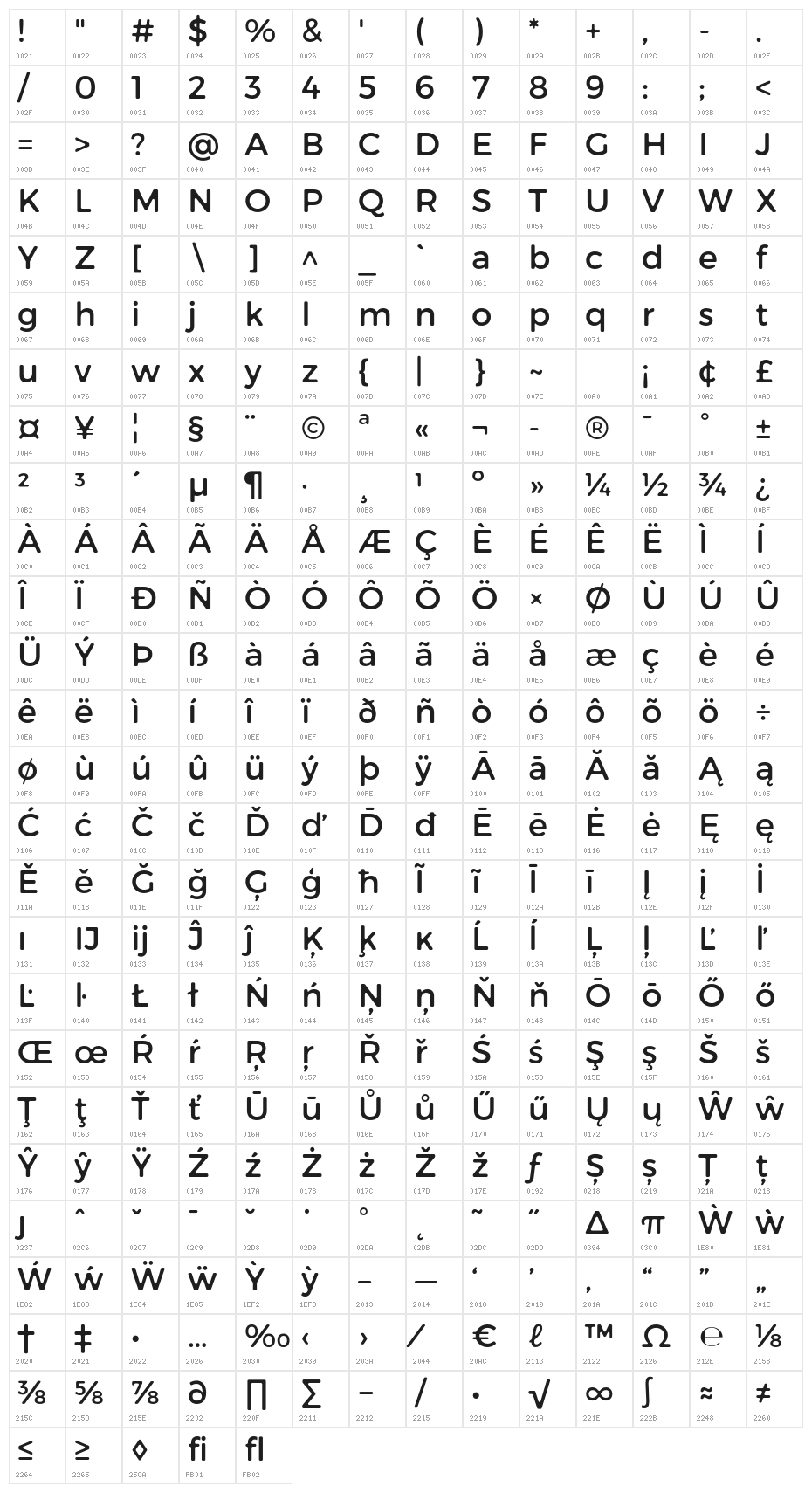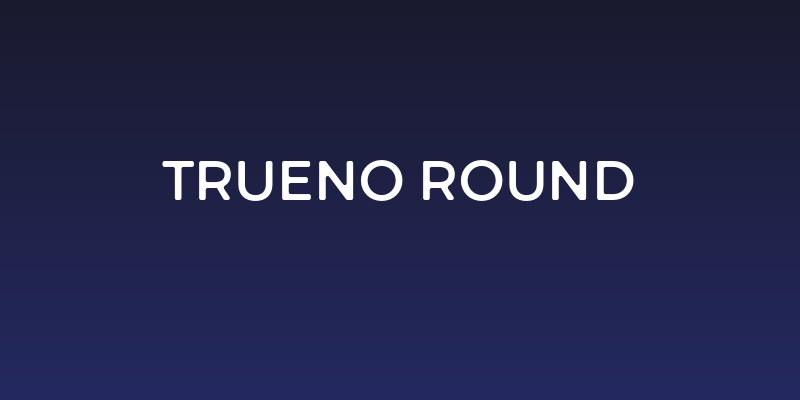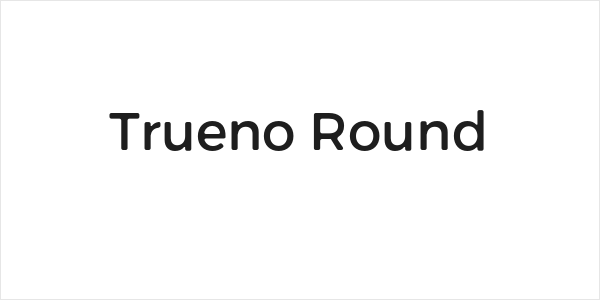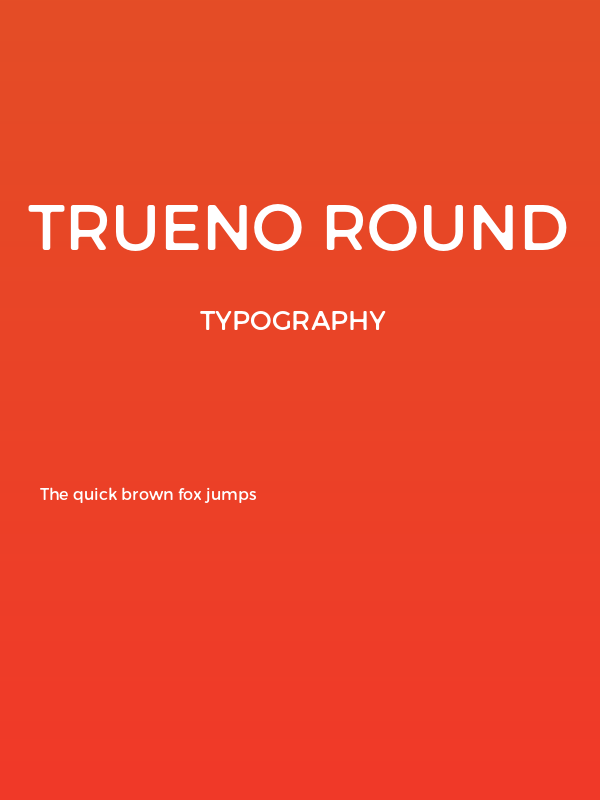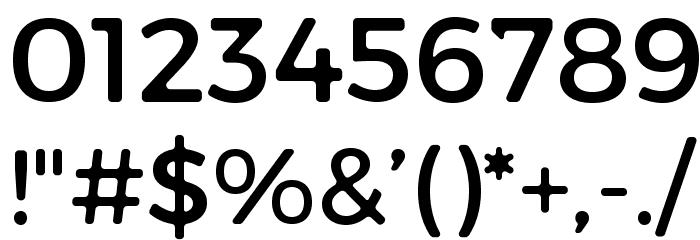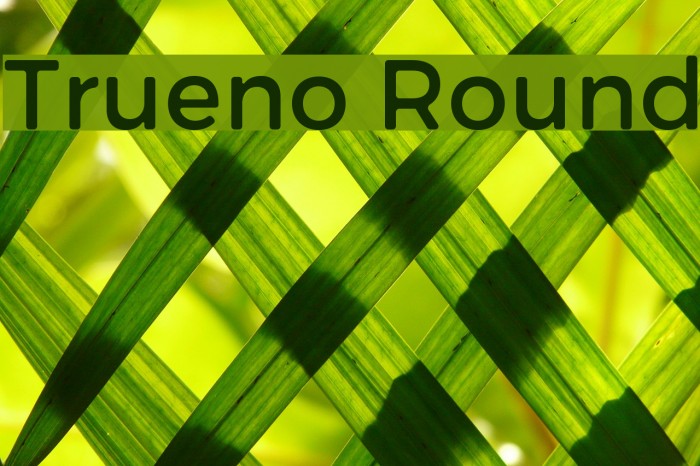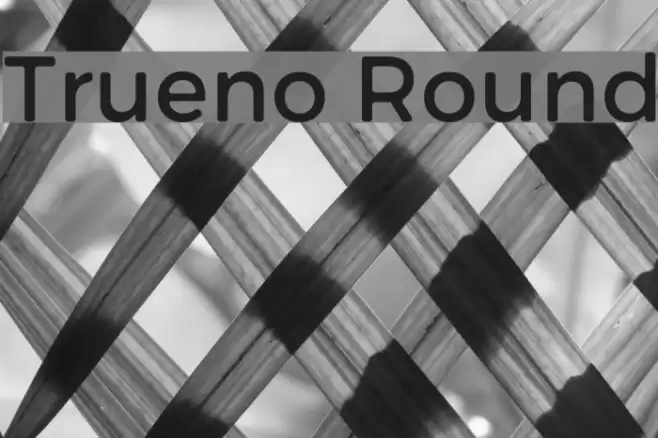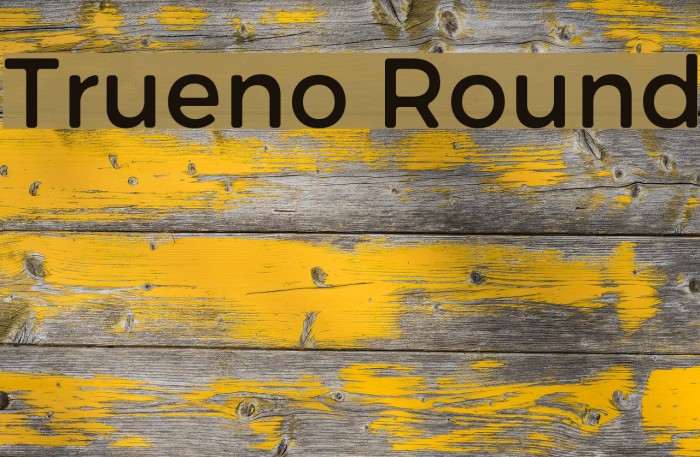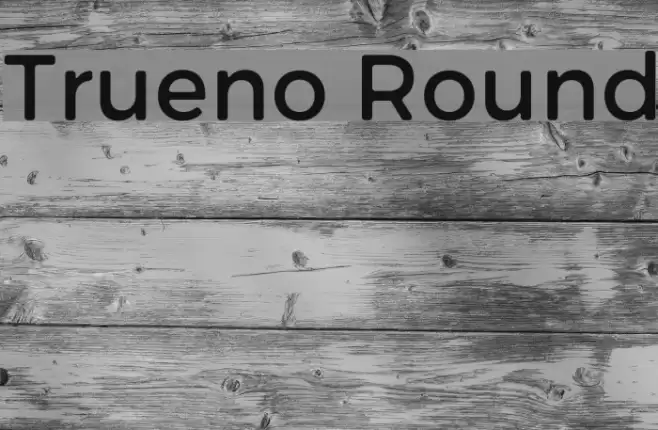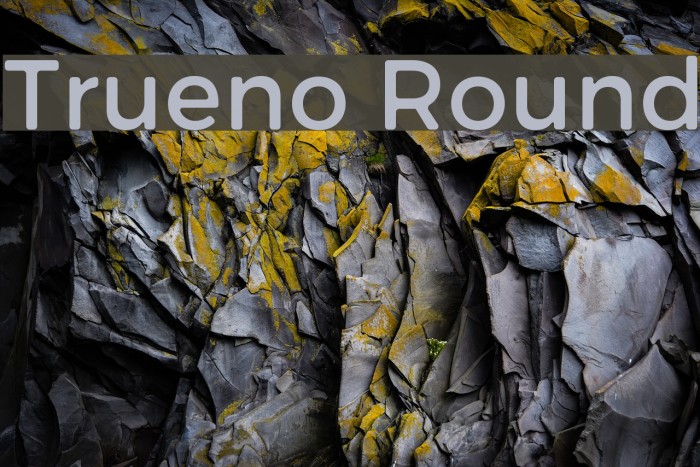
Trueno Round Font
Trueno Round Description
This font features a clean and modern design with rounded edges that give it a friendly and approachable appearance. The characters are evenly spaced, providing excellent readability. Its geometric structure is balanced with a slight softness due to the rounded terminals, making it versatile for various applications. The uniform stroke width throughout the characters ensures a consistent look, while the open counters enhance legibility. This font is suitable for both digital and print media, offering a contemporary aesthetic that is both professional and inviting.
| Use Case | Headlines, Body text, Logos |
| Proposed Projects | Ideal for branding, web design, advertising, and user interfaces where a modern and friendly look is desired. |